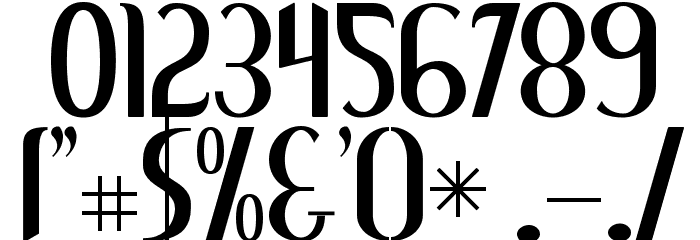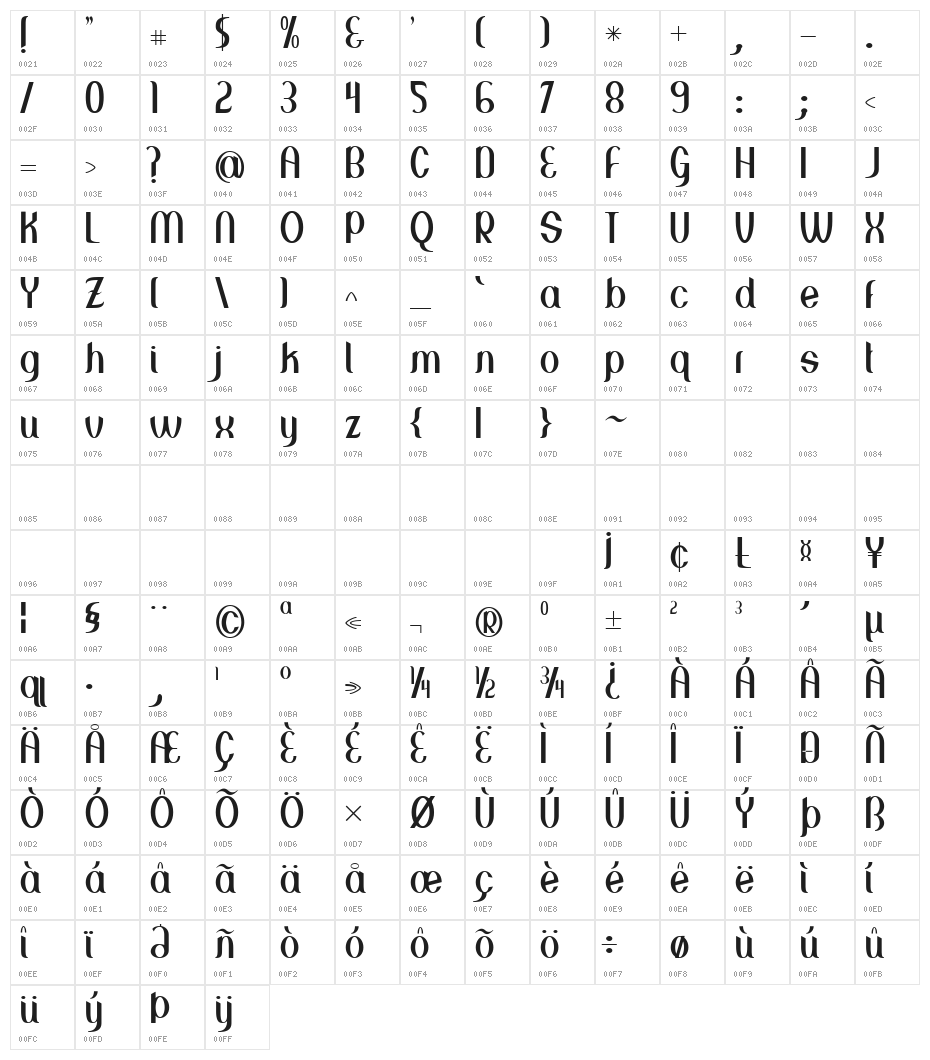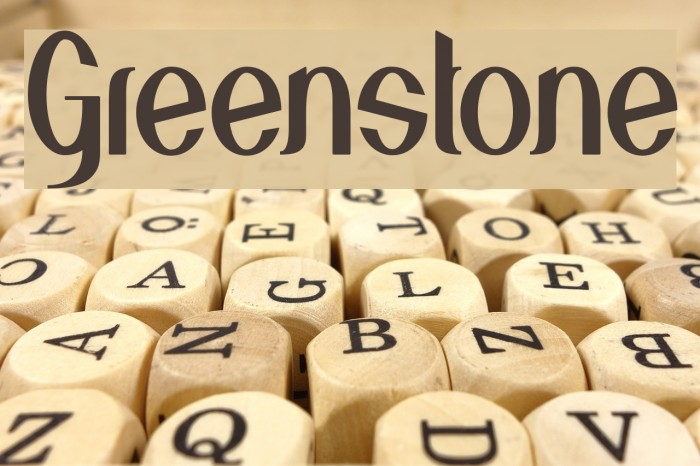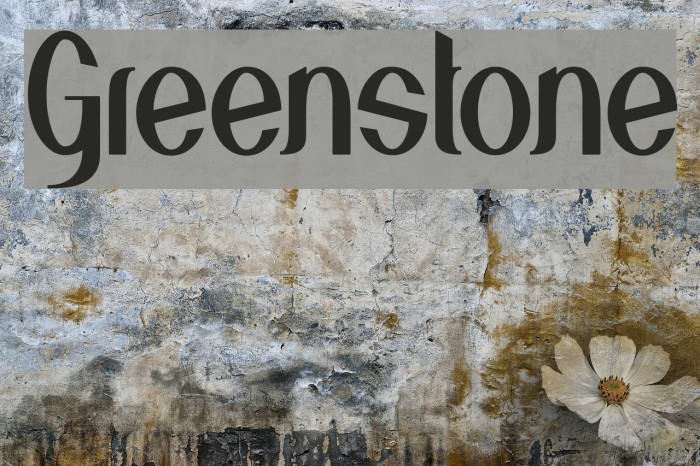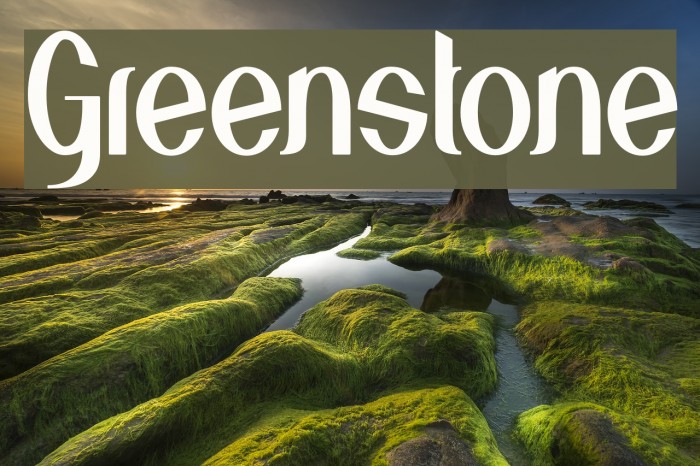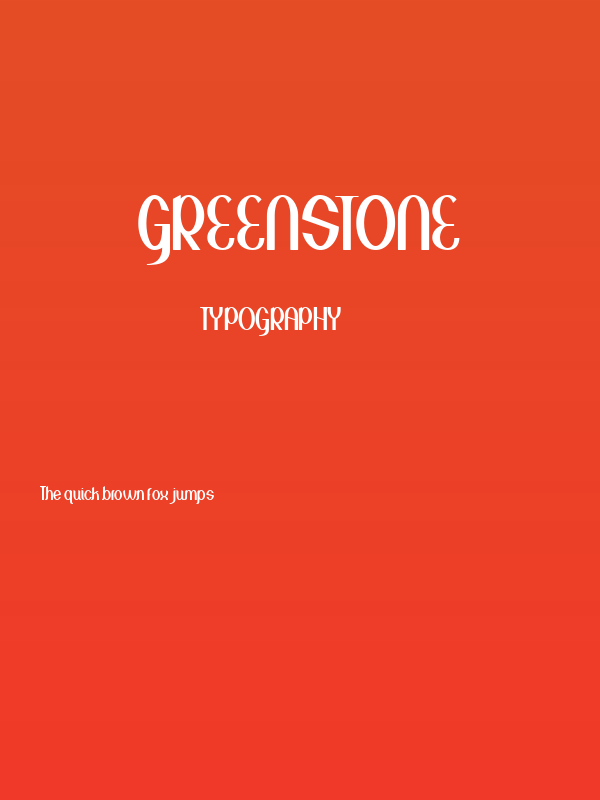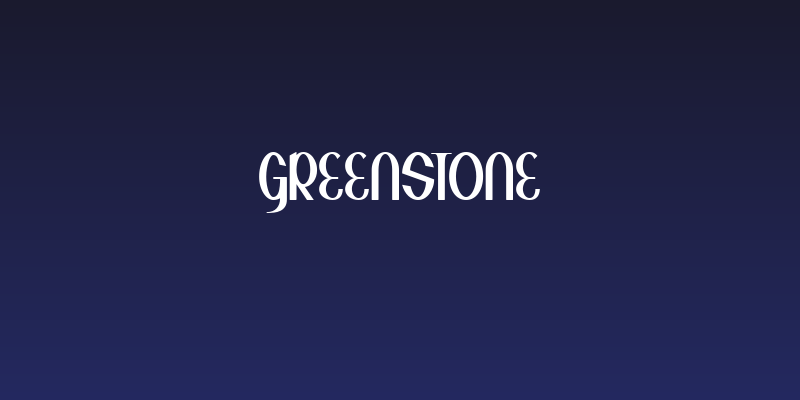
Greenstone Font
Greenstone Description
This font features a unique blend of modern and vintage styles, characterized by its tall, narrow letterforms and distinct curves. The uppercase letters exhibit a strong vertical emphasis with rounded edges, while the lowercase letters maintain a consistent flow with slightly exaggerated ascenders and descenders. The numerals are bold and easily distinguishable, complementing the overall aesthetic. Special characters are crafted with the same attention to detail, ensuring a cohesive look across all glyphs. The font's design is both eye-catching and versatile, making it suitable for a variety of creative applications.
A modern-vintage font with tall, narrow letterforms and distinct curves from Uncategorized fonts.
- Proposed Projects: Ideal for branding, poster design, and editorial layouts where a striking, stylish typeface is needed.
- Overall Style: Modern, Vintage